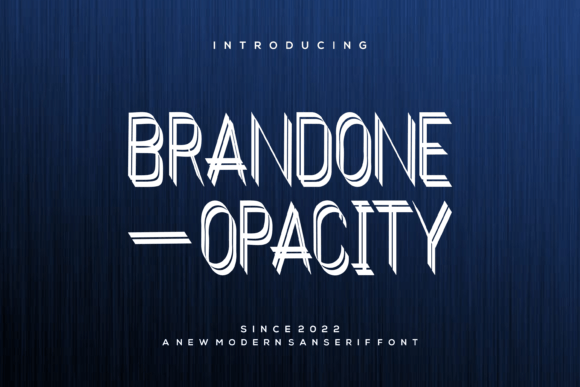
Introducing Brandone Opacity, the font that will ignite your creativity and make your designs sing! This captivating display font exudes modernity and style, effortlessly elevating your projects to new heights.
Crafted with meticulous precision by the renowned font designer riotj, Brandone Opacity is the perfect choice for music lovers, creatives, and anyone seeking a touch of elegance. Its clean lines and sophisticated curves dance across the page, creating a visual symphony that will leave a lasting impression.
Whether you're composing music scores, designing posters, or crafting eye-catching logos, Brandone Opacity is your muse. Its versatility knows no bounds, adapting seamlessly to a wide range of projects, from the traditional to the avant-garde.
Embrace the power of Brandone Opacity and let your imagination soar. Its crisp, legible characters ensure effortless readability, while its distinctive style adds a touch of flair to any text. Whether you're working on a personal project or a professional masterpiece, Brandone Opacity will elevate your designs, making them unforgettable.
Don't settle for ordinary fonts that fade into the background. Choose Brandone Opacity, the font that will make your projects stand out from the crowd. Its timeless appeal will ensure that your creations remain relevant and captivating for years to come.